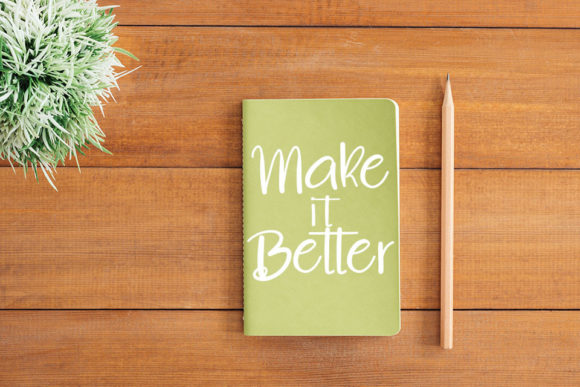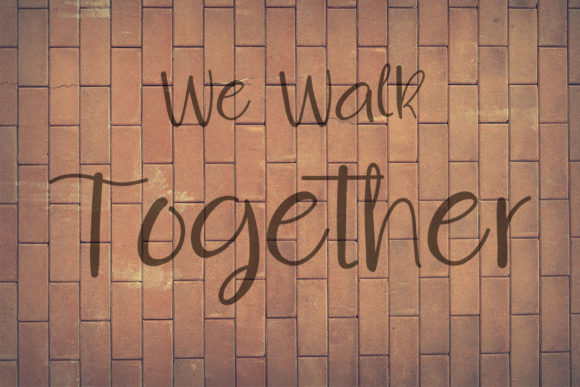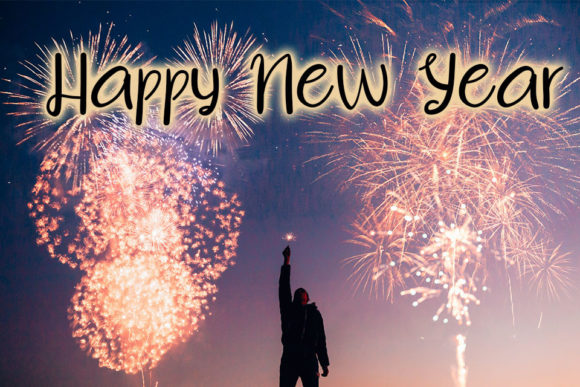
Introducing Blissful Font: Elevate Your Designs with Elegance and Sophistication
In the world of typography, a font can make or break a design. It’s the perfect blend of style, elegance, and personality that can transform a simple project into a masterpiece. If you’re a designer, crafter, or simply someone who appreciates beautiful typography, you’re in for a treat. Say hello to Blissful Font, an exquisite handwritten font that’s sure to capture your heart and take your projects to new heights.
The Essence of Blissful Font
Blissful Font is a meticulously crafted handwritten font that exudes class and sophistication. Its design is deeply rooted in traditional calligraphy, yet it boasts a modern and fresh feel that’s perfect for a wide range of applications. Whether you’re working on a wedding invitation, a branding project, or a digital product, Blissful Font is the perfect choice for those who demand the best.
What Makes Blissful Font Stand Out?
- Classy Calligraphic Influences: Blissful Font draws inspiration from traditional calligraphy, giving it an air of elegance and refinement.
- Contemporary and Fresh: Despite its classic roots, Blissful Font feels modern and fresh, making it perfect for designers who want to create something new and exciting.
- Handwritten with Love: Every letter, every curve, and every flourish has been carefully crafted with love and attention to detail, giving Blissful Font a personal and human touch.
- Versatile: Blissful Font is incredibly versatile and can be used for a wide range of projects, from digital products to print materials.
Why Designers and Crafters Love Blissful Font
Blissful Font has quickly become a favorite among designers and crafters, and for good reason. Its unique blend of style, elegance, and personality makes it the perfect choice for those who want to create something truly special. Here are just a few reasons why:
- Easy to Read: Despite its elegant and cursive nature, Blissful Font is incredibly easy to read, making it perfect for body text and headlines.
- Highly Legible: The font’s careful attention to detail and precise lettering ensure that it’s highly legible, even at small sizes.
- Customizable: Blissful Font comes with a range of customization options, allowing you to tailor it to your project’s specific needs.
How to Use Blissful Font in Your Projects
Using Blissful Font in your projects is incredibly easy. Here are just a few ways you can incorporate it into your work:
- Wedding Invitations: Add a touch of elegance and sophistication to your wedding invitations with Blissful Font.
- Branding Projects: Use Blissful Font to create stunning brand identities that exude class and refinement.
- Digital Products: Add a personal touch to your digital products, such as ebooks, courses, and software, with Blissful Font.
- Print Materials: Use Blissful Font to create beautiful print materials, such as brochures, flyers, and posters.
In conclusion, Blissful Font is an exquisite handwritten font that’s sure to capture your heart and take your projects to new heights. Its unique blend of classy calligraphic influences and modern freshness makes it the perfect choice for designers, crafters, and anyone who appreciates beautiful typography. With its ease of use, customizability, and versatility, Blissful Font is an essential tool for anyone looking to elevate their designs and create something truly special.